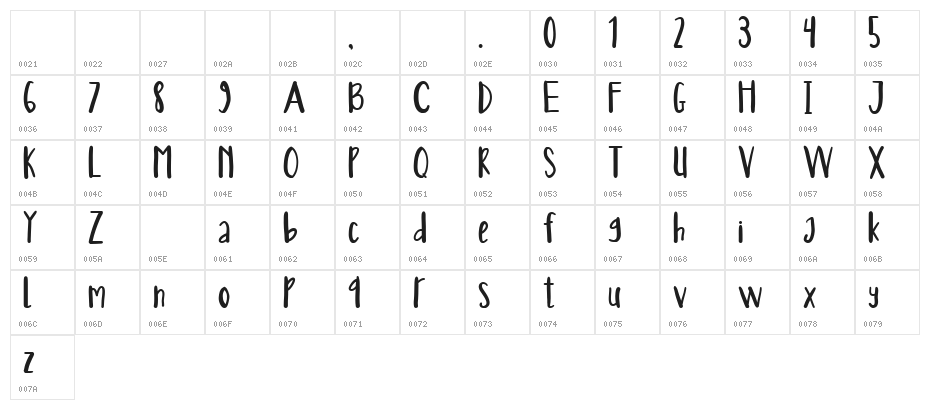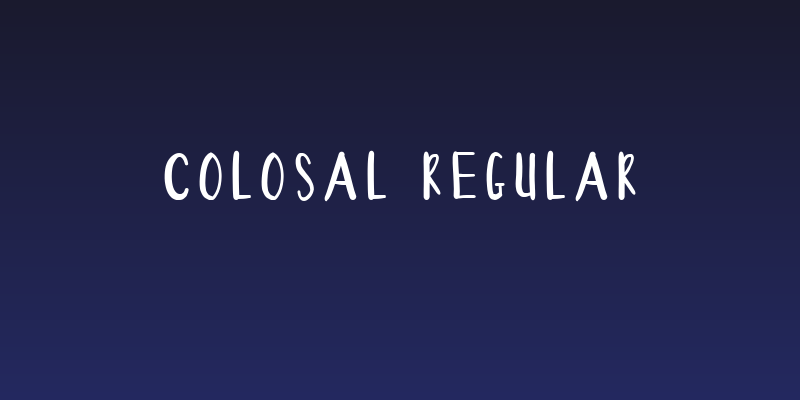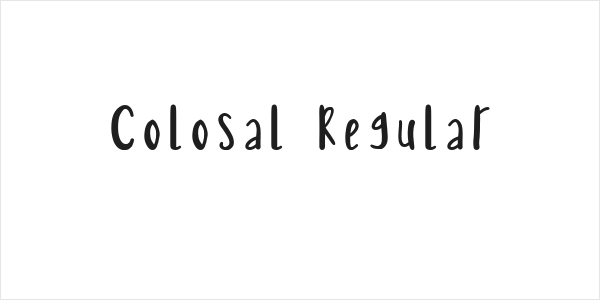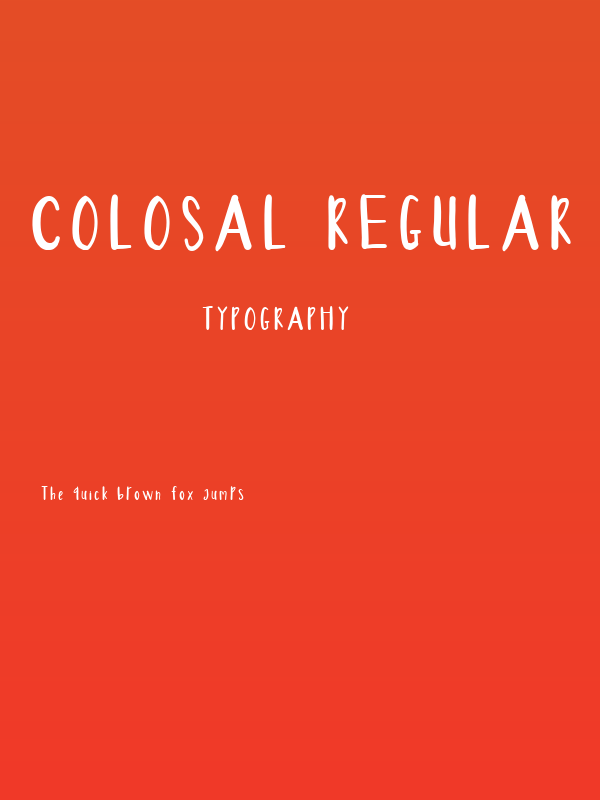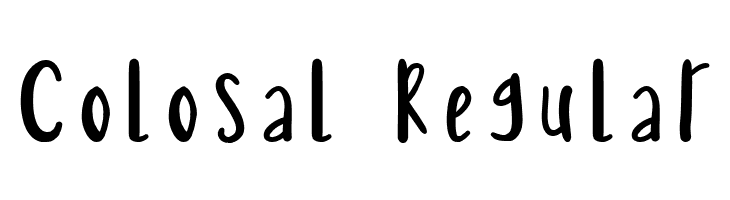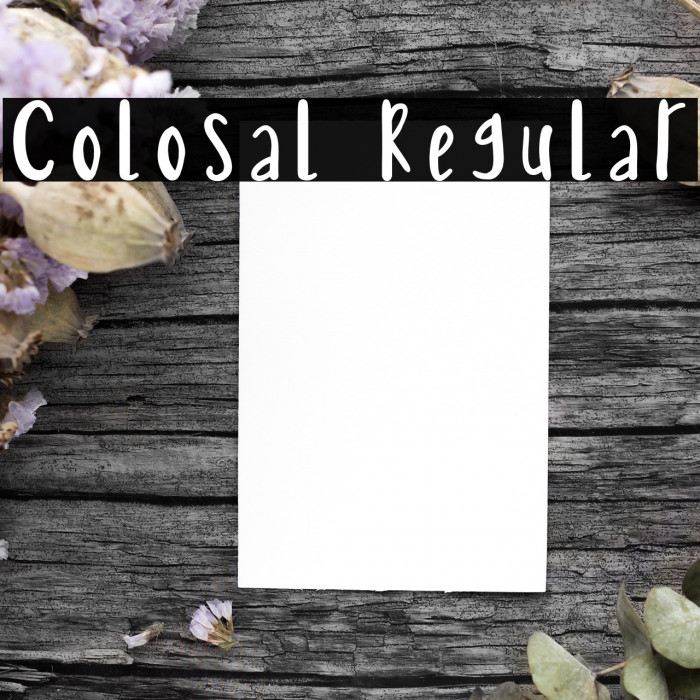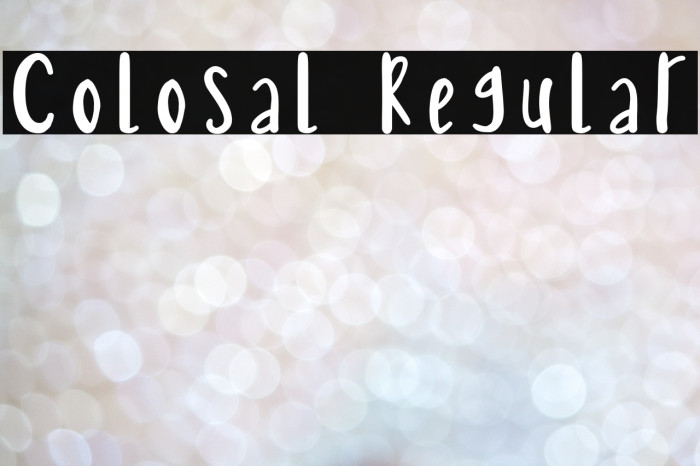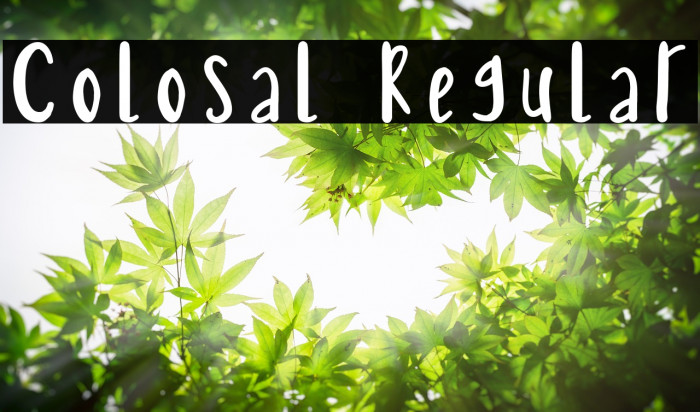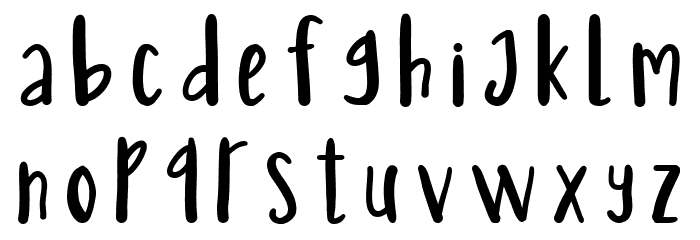
Colosal Regular Font
Colosal Regular Description
This font features a playful and informal style, characterized by its hand-drawn appearance. The letters have a slightly irregular shape, giving them a whimsical and approachable feel. The strokes are bold and consistent, with rounded edges that add to the friendly aesthetic. The uppercase and lowercase letters maintain a cohesive look, while the numerals and punctuation marks complement the overall design. This font's unique charm makes it suitable for creative projects that require a personal touch.
| Proposed Projects | Ideal for children's books, greeting cards, posters, and creative branding projects. |